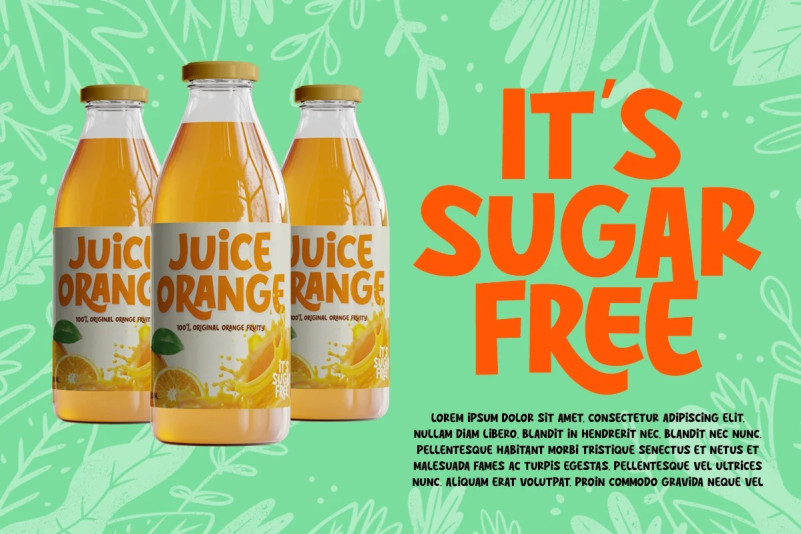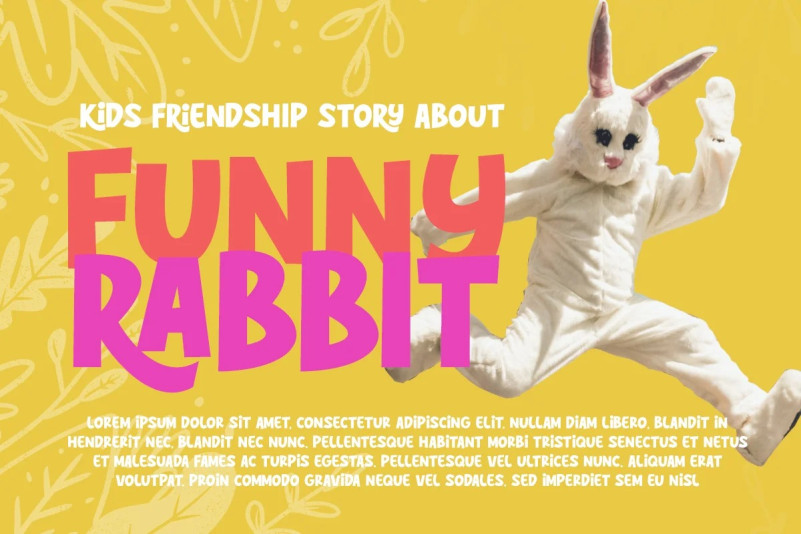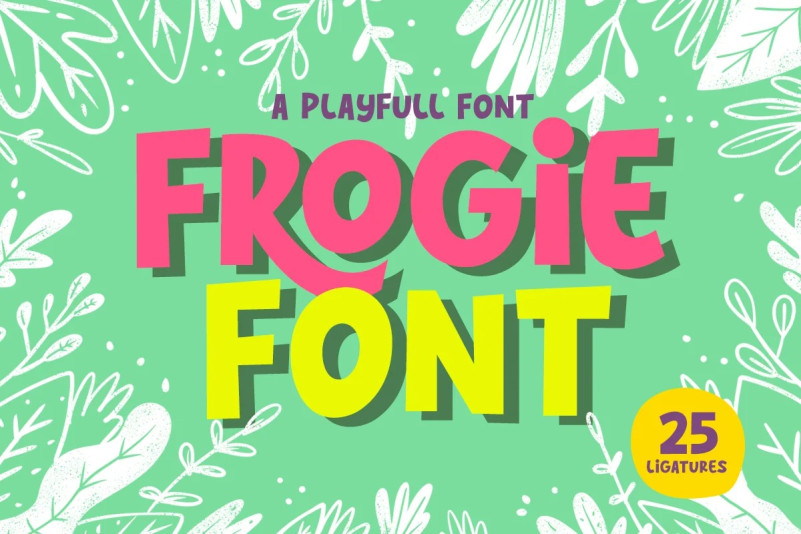
Frogie Font
Frogie Font will look great for book headers, logo design, greeting cards, stickers, Instagram posts, quotes, playful branding, kids’ stuff, youtube title. We hope you get inspired by the preview designs and you can make some playful designs with Frogie font!